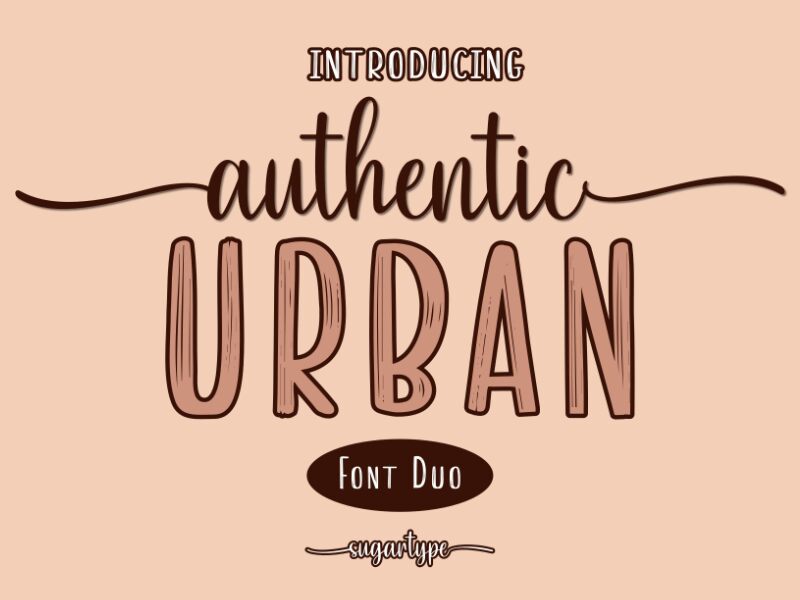
Authentic Urban, crafted by Sugartype, is a captivating handwritten font that exudes a touch of urban charm. Its semi-light weight adds an air of delicacy and elegance to any design project.
This versatile typeface is perfect for a variety of creative endeavors, including logo design for boutique coffee shops or trendy fashion brands. It also works seamlessly in editorial layouts for lifestyle magazines or digital platforms seeking to convey an authentic and contemporary vibe.
With Authentic Urban, your designs will effortlessly stand out with its distinctive and stylish handwritten aesthetic.